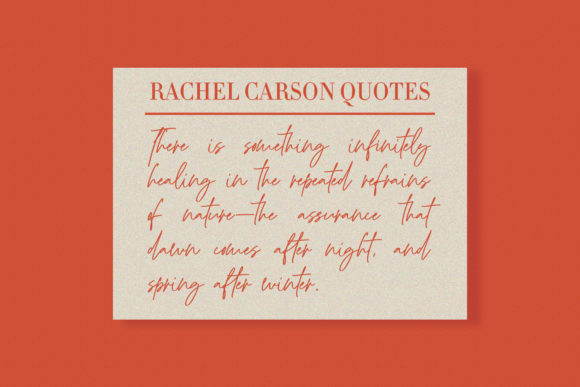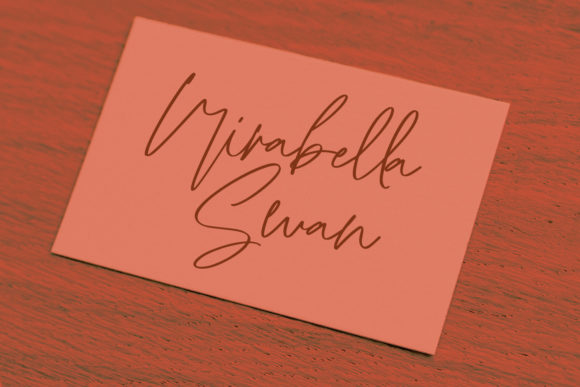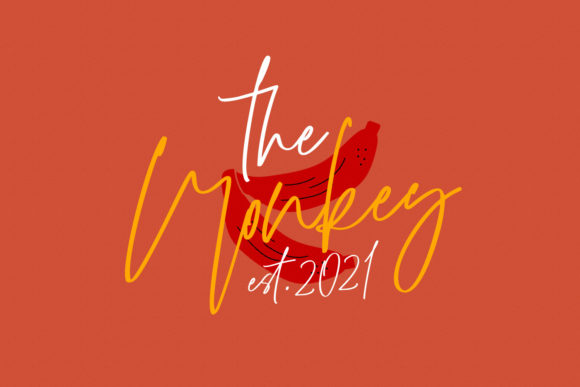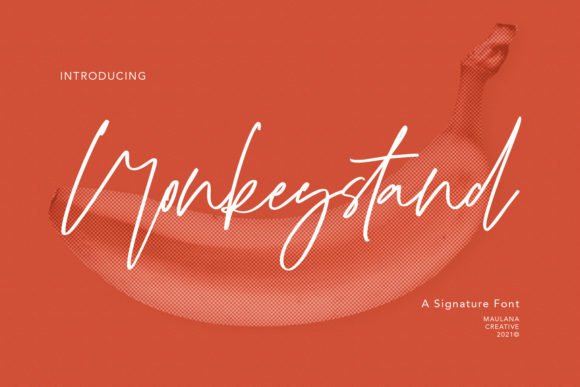
Introduction to Monkeystand Font
Monkeystand is an extremely sleek and elegant handwritten font.
Slim and beautifully flowing, this typeface will surely elevate the look of your next creations .
Why Choose Monkeystand Font?